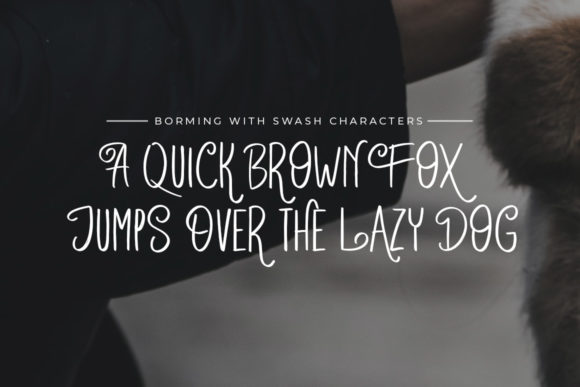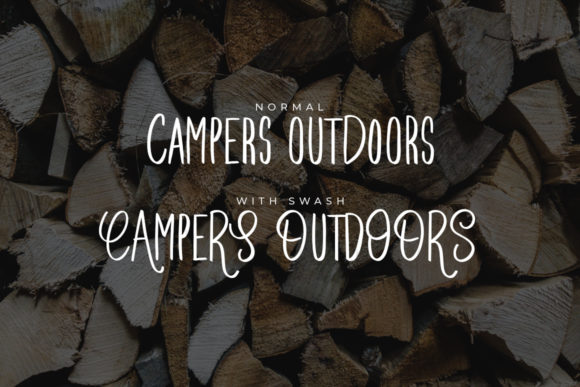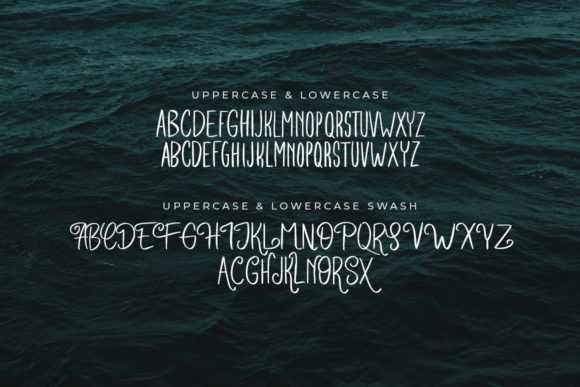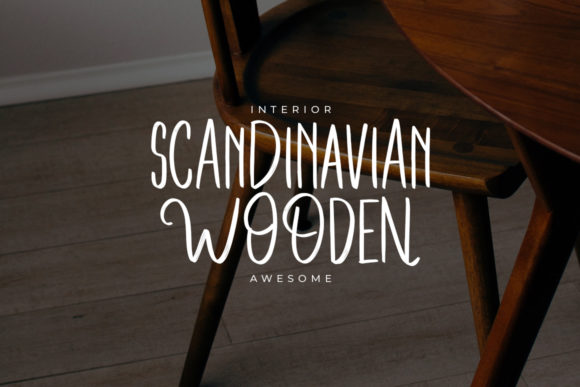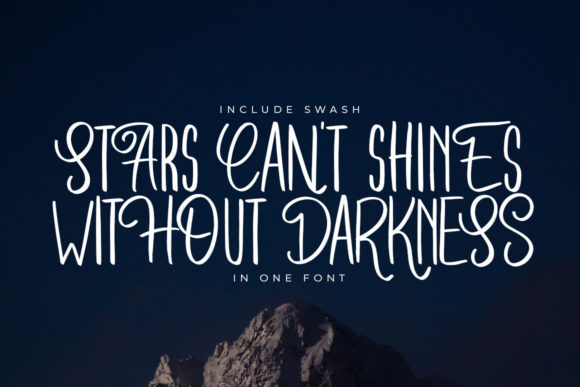
Unleash Your Creativity with the Borming Font
Enter the Borming Font, a sleek and elegant display font that’s perfect for making a statement. Its tall and neat design makes it an ideal match for a wide range of projects, from elegant wedding invitations to modern logos. The Borming Font is a valuable addition to any designer’s toolkit, offering a unique touch that elevates their work to the next level.
Borming Font Key Features
- Font Family: Borming Font is a sans-serif typeface, suitable for various design applications.
- Character Set: Borming Font supports a wide range of languages, including Latin, Cyrillic, and Greek alphabets, making it a versatile choice for multilingual designs.
- Unique Characteristics: Borming Font features a unique blend of modern and minimalist design elements, making it an excellent choice for contemporary designs.
Borming Font Review
- Unique and quirky design: Borming Font has a distinct, hand-drawn feel that sets it apart from more generic fonts.
- Good legibility: Despite its playful nature, the font is surprisingly easy to read, making it suitable for body text.
- Wide language support: Borming Font covers a wide range of languages, making it a great option for international projects.
- May not be suitable for formal projects: Borming Font’s quirky nature might not be the best fit for corporate or government projects.
- Not ideal for small text: While the font is legible, it can become pixelated or hard to read when used at small sizes.
- Limited stylistic variations: Compared to other fonts, Borming Font has a relatively limited range of weights and styles.
Borming Font is a fun, unique font that’s perfect for creative projects or brands that want to stand out. While it has some limitations, it’s definitely worth considering for the right project. Just be mindful of its quirks and use it thoughtfully to get the best results.
Getting the Most Out of Borming Font
Use Borming Font for titles, headings, and body text to create a unique and professional design. Experiment with different font sizes and colors to achieve the desired effect.
Borming Font is suitable for a variety of designs, including:
Great Vibes has a more organic feel than Borming Font, which makes it ideal for designs that require a sense of movement and flow. While Borming Font is more geometric, Great Vibes is more free-flowing and artistic.
Dancing Script is a lively, playful script font perfect for designs that require a sense of energy and movement. It features flowing connections and a whimsical feel, making it suitable for titles, headings, and quotes. Use it for: creative branding, advertising, and editorial layouts.
Does Borming Font support various languages?
Borming Font supports a wide range of languages, including Latin, Cyrillic, and Greek scripts. It also includes support for various diacritical marks and special characters, making it a versatile choice for global design projects.